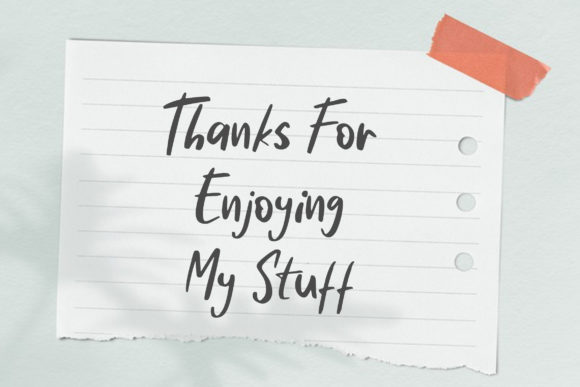
Introduction to Hermanio Font Font
Fonts play a crucial role in design, and the Hermanio Font font is a typeface that brings both character and versatility to any project. Whether you’re working on a branding project, a website, or a print design, the Hermanio Font font offers a unique style that can elevate your work.
Hermanio is a cool, friendly, and whimsical handwritten font.
Add it to each of your party invitations, gathering, or pretty much any design that requires a touch of youth and joy .
Key Features of Hermanio Font Font
Why Choose Hermanio Font Font?
The Hermanio Font font is more than just a typeface – it’s a design tool that helps you communicate your message with style and clarity. Its unique character set and versatile design make it suitable for a wide range of applications, from elegant invitations to bold headlines.
With its carefully crafted letterforms and balanced proportions, the Hermanio Font font ensures readability and visual appeal across all mediums.
What makes Hermanio Font font special?
The Hermanio Font font stands out with its unique design, exceptional readability, and versatility across various design applications.